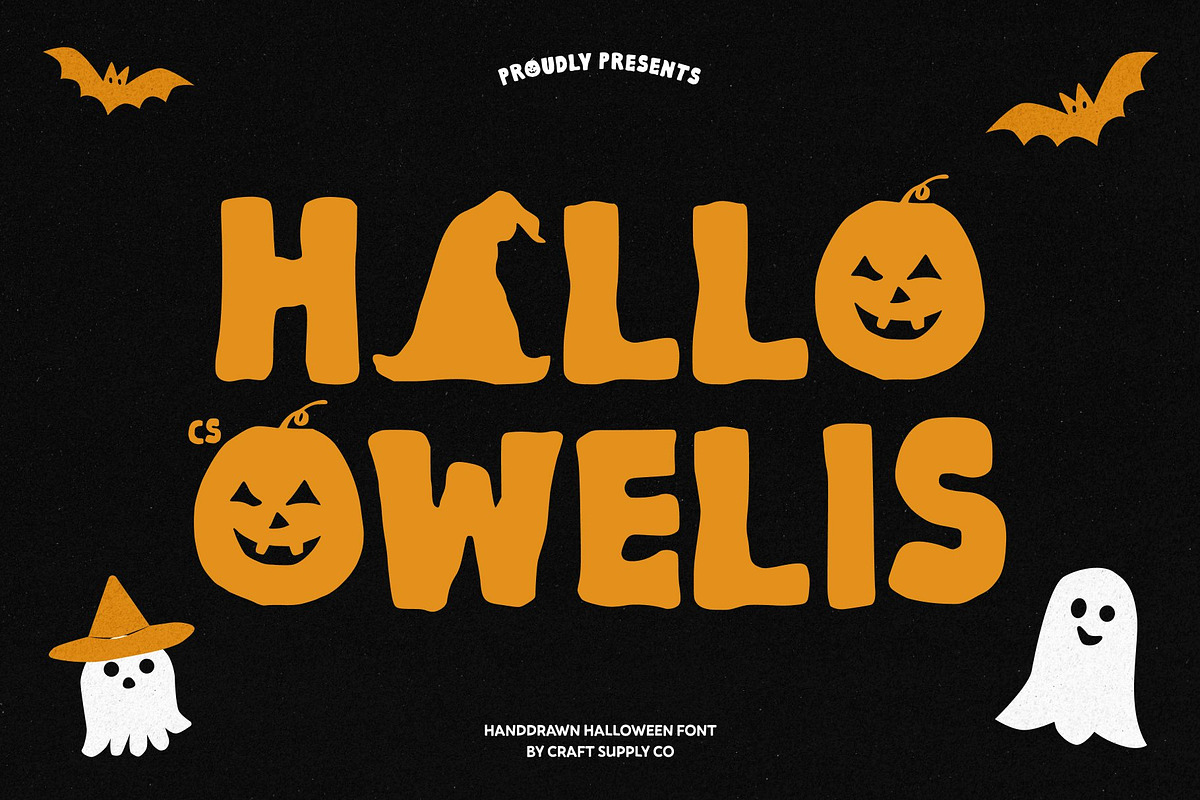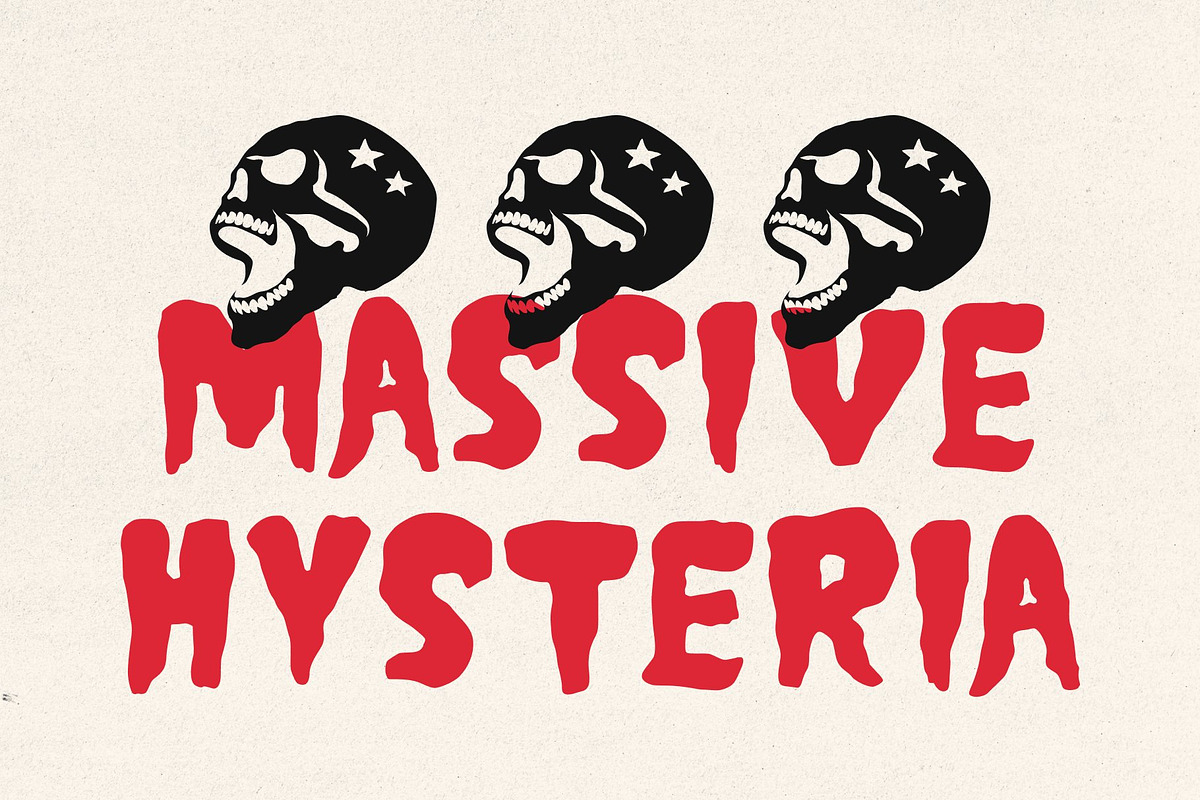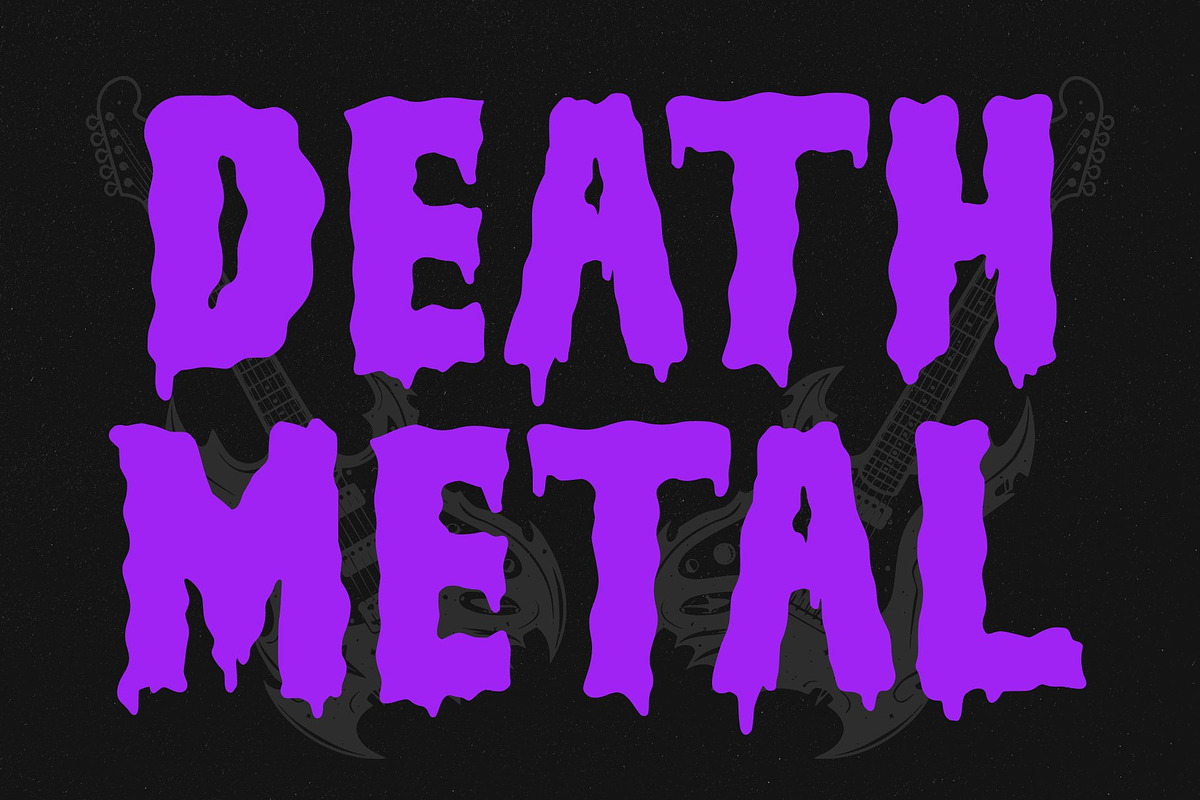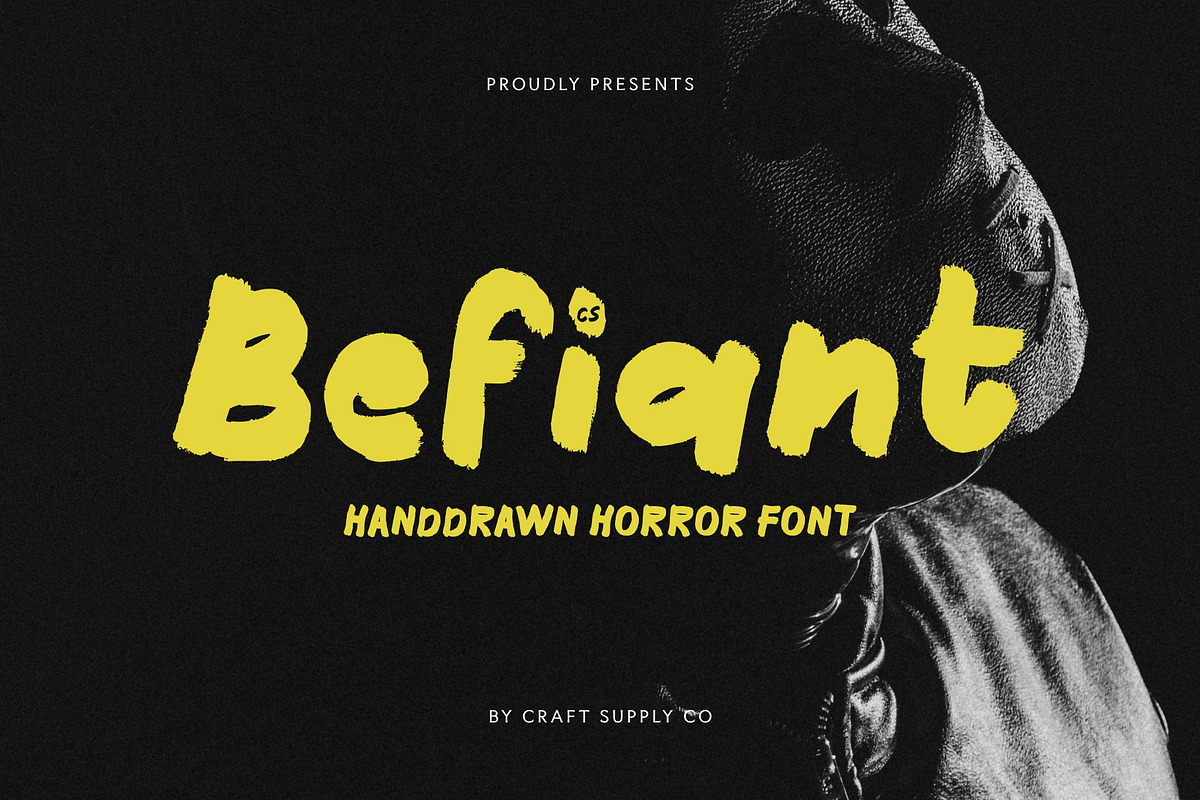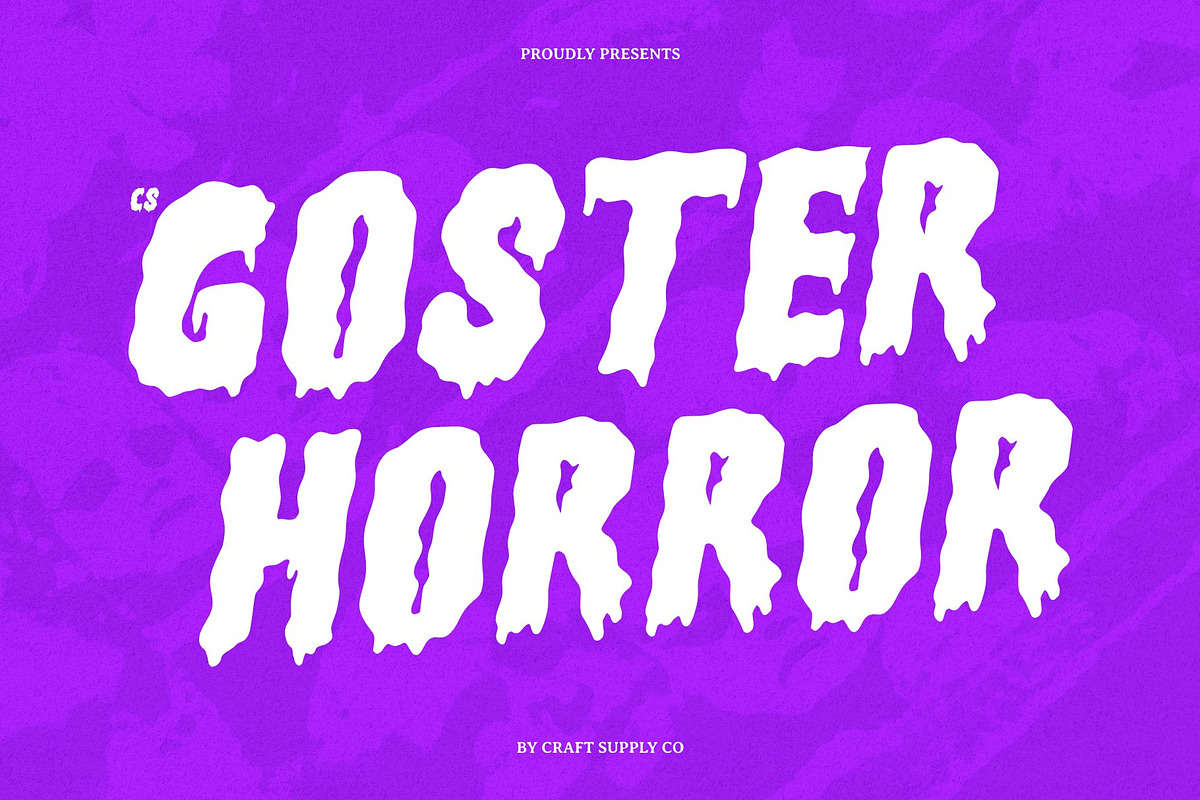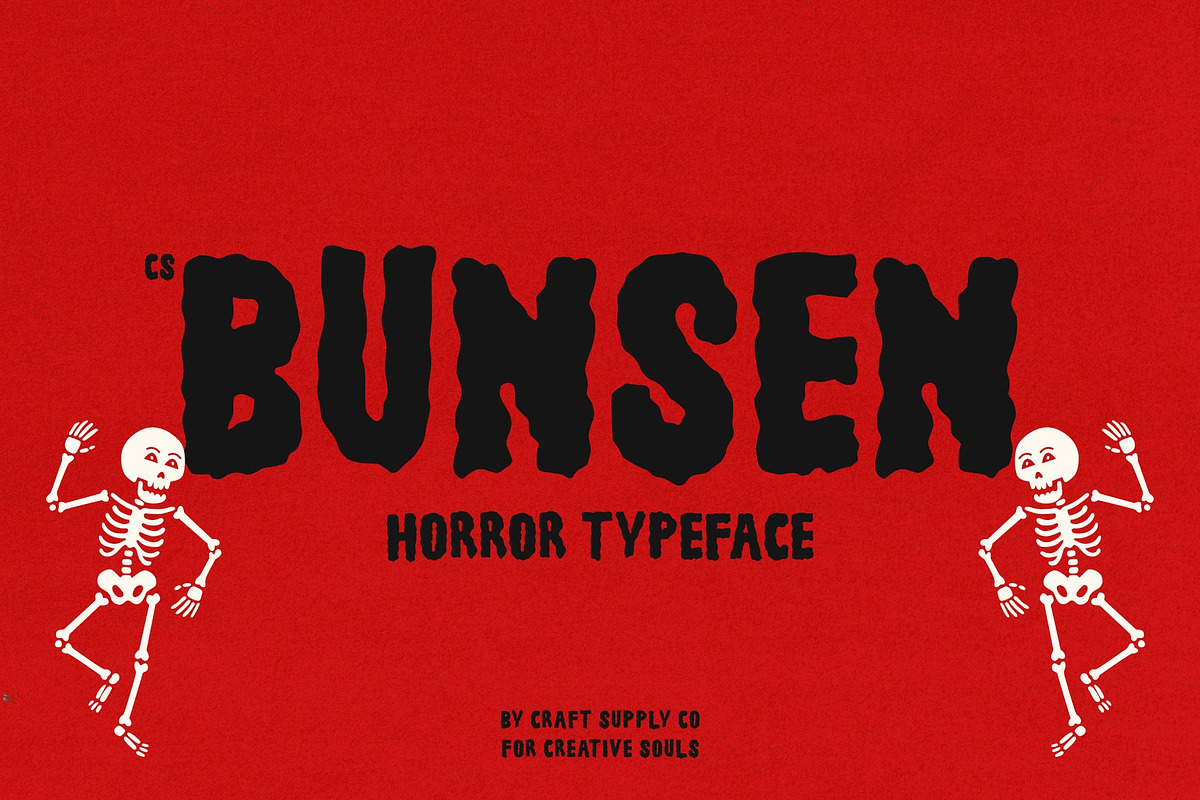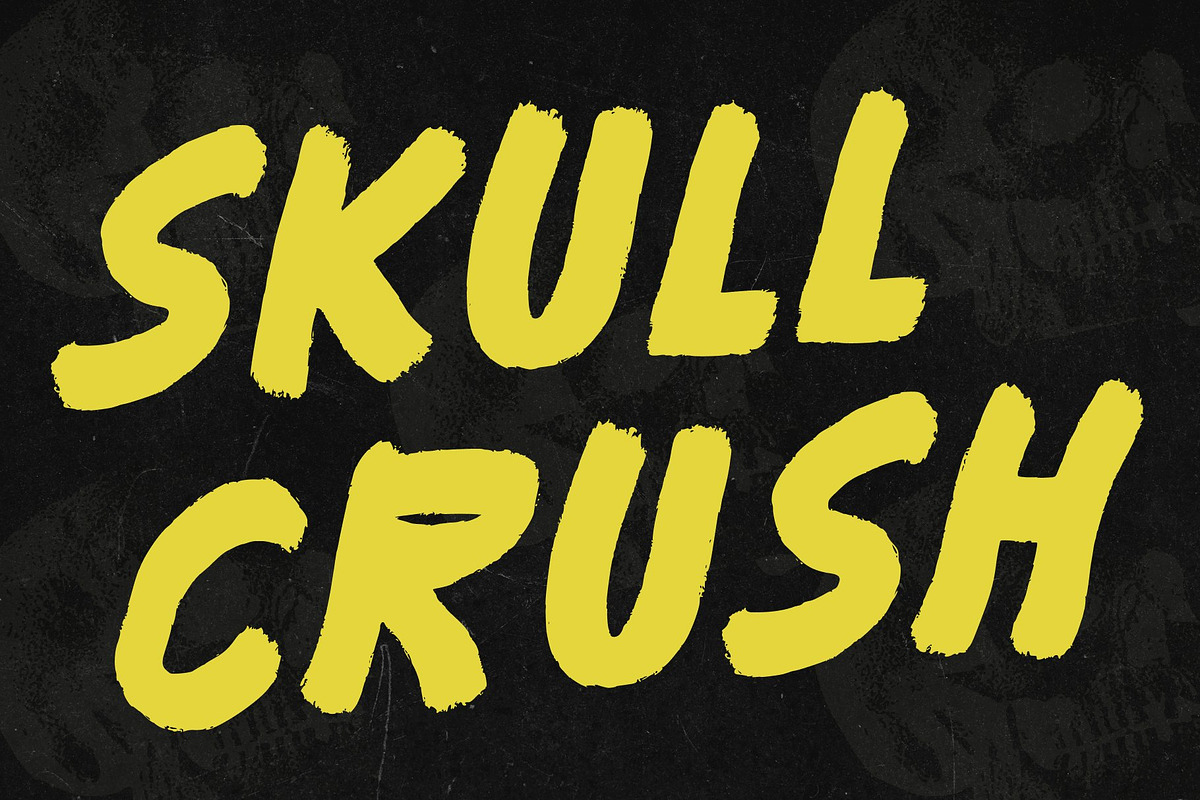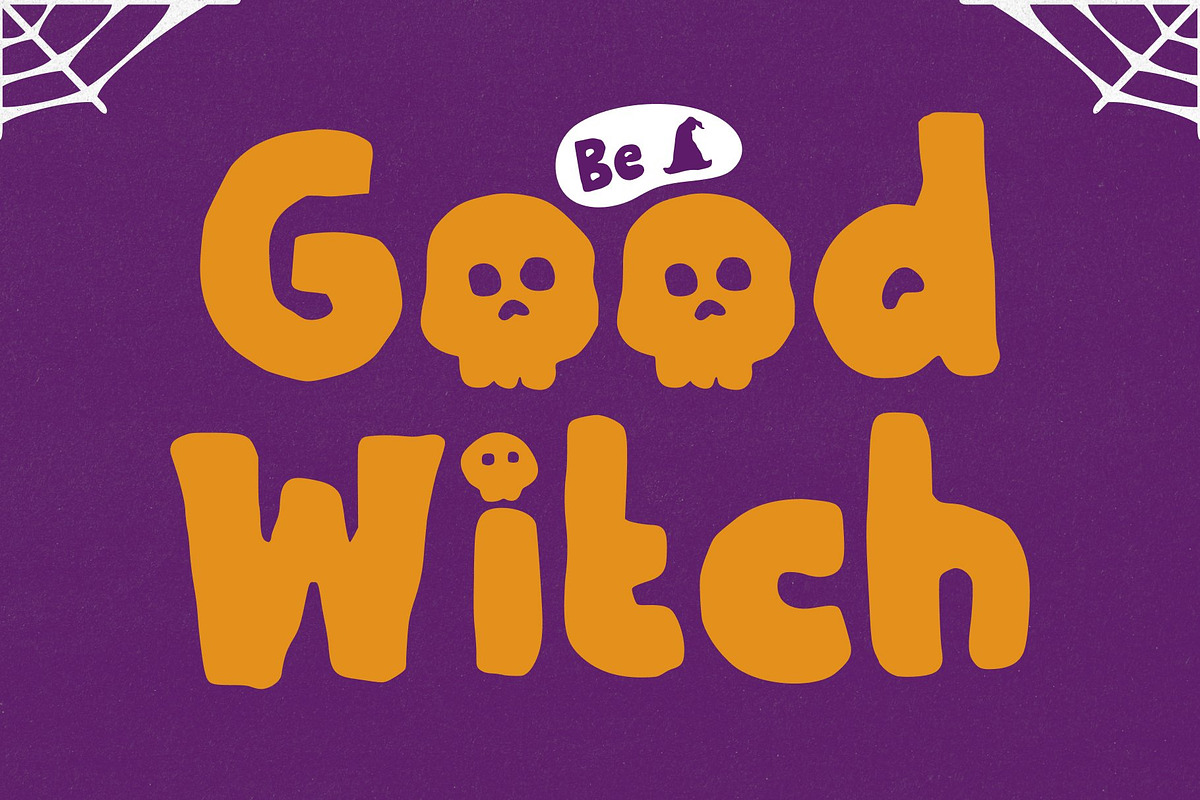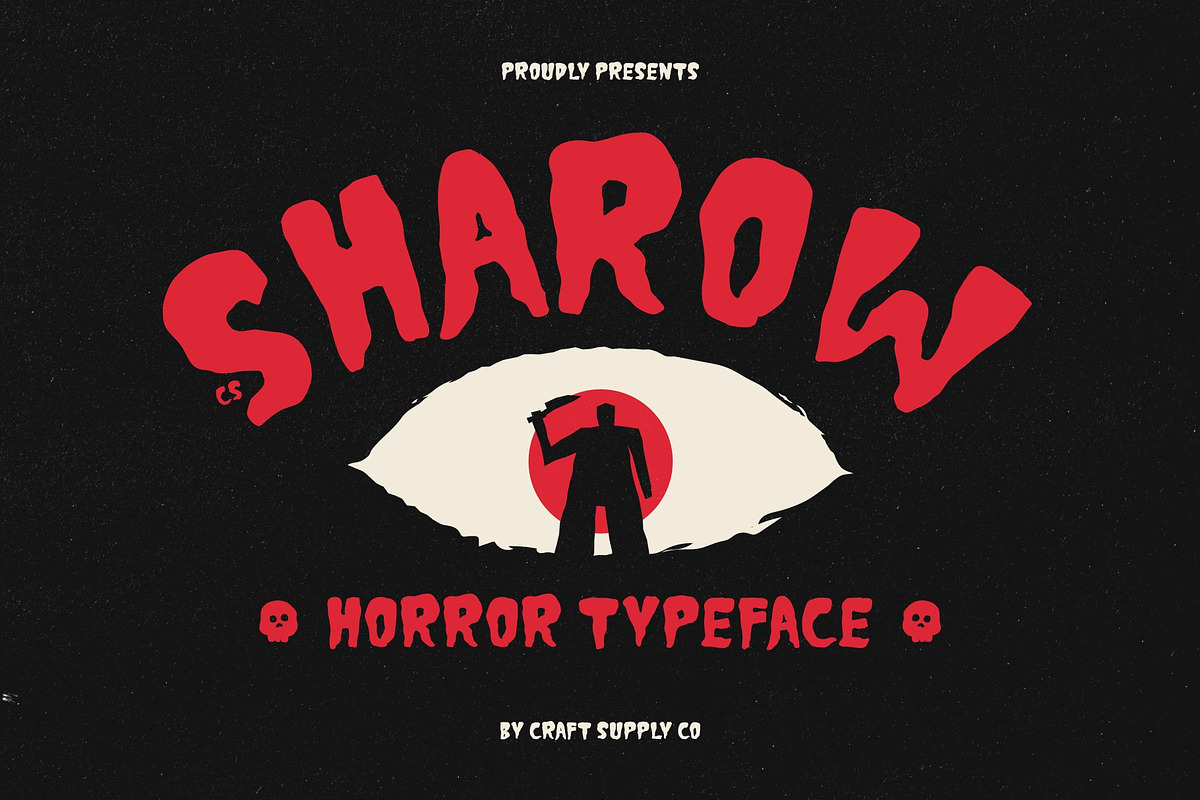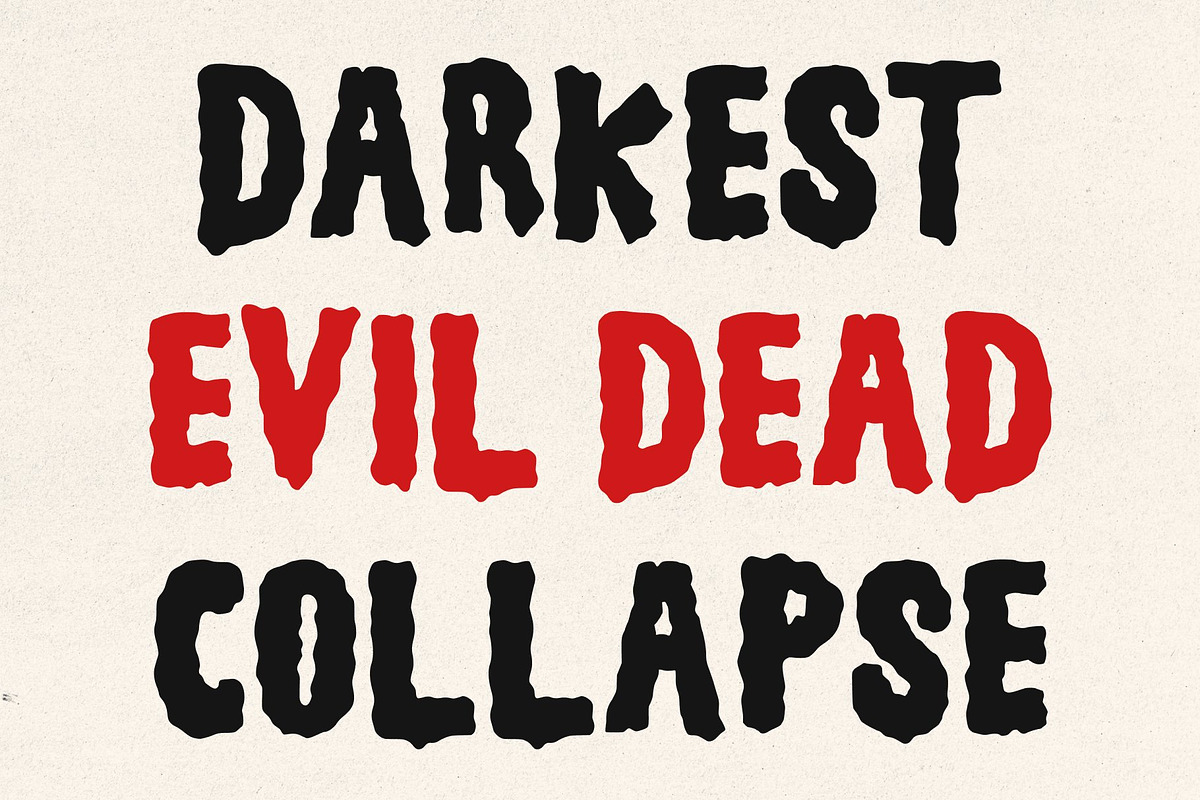
Vintage Horror Font Bundle
The collection features versatile character sets including uppercase letters, lowercase letters, numerals, punctuation marks, and essential symbols. Whether you are crafting blood-curdling headlines or subtle eerie accents, these glyphs provide the authentic terror and distressed charm your layouts demand.
Bring your scariest ideas to life across a wide variety of realistic applications. These fonts are perfectly suited for Halloween event posters, indie horror game title screens, haunted house flyers, heavy metal album covers, and striking apparel designs. They also excel in digital content creation, giving YouTube thumbnails, podcast covers, and social media graphics an immediately recognizable, spine-chilling atmosphere.
The Vintage Horror Font Bundle eliminates the need to hunt for individual lettering styles by gathering fifteen diverse, high-quality options into one cohesive package. Elevate your next dark design project with professional-grade typefaces that demand attention and deliver unforgettable visual dread.
15 unique fonts
Includes uppercase, lowercase, numerals, punctuation, and symbols
CS Befiant
CS Bunsen
CS Goster
CS Owelis
CS Sharow